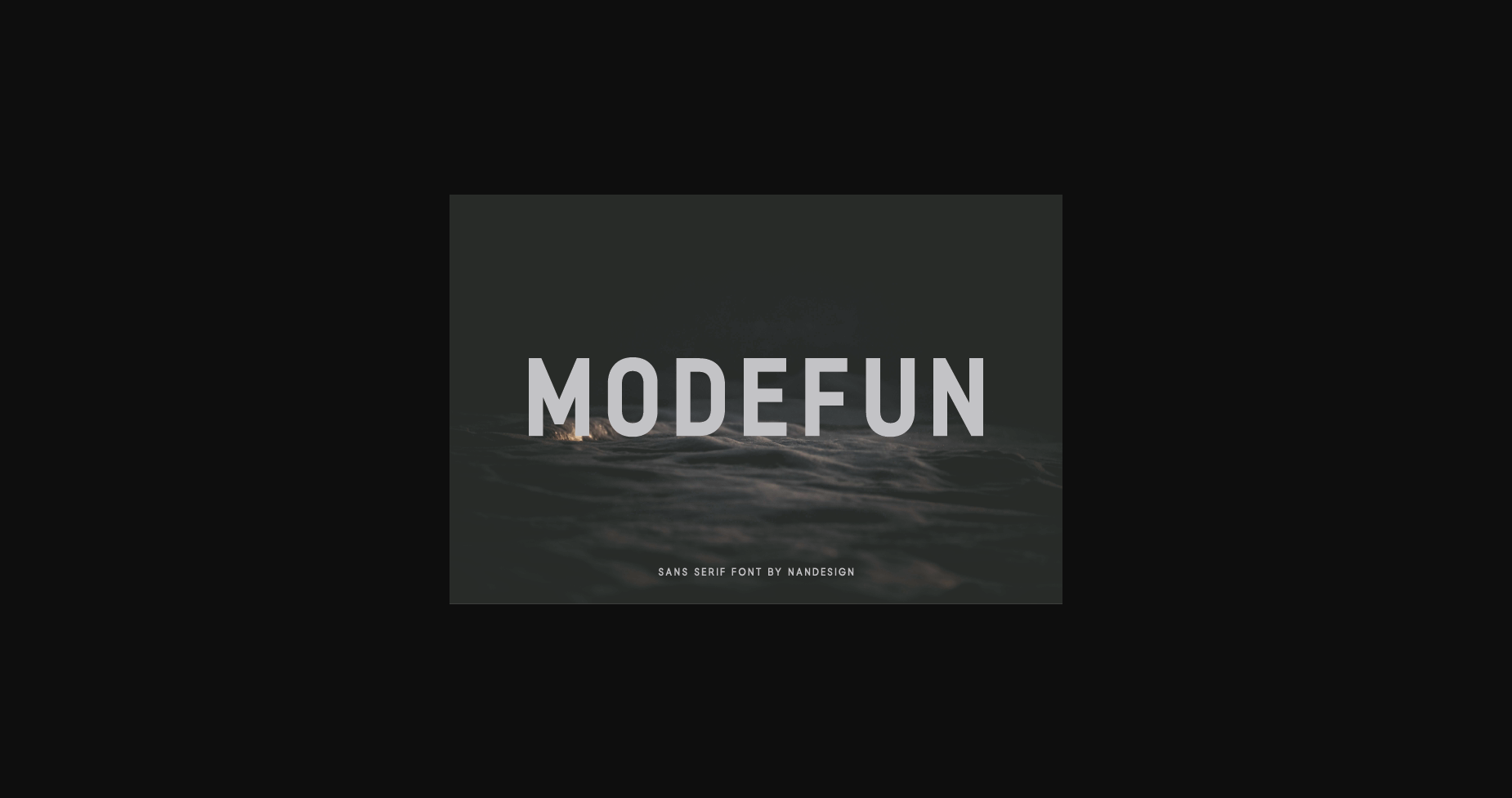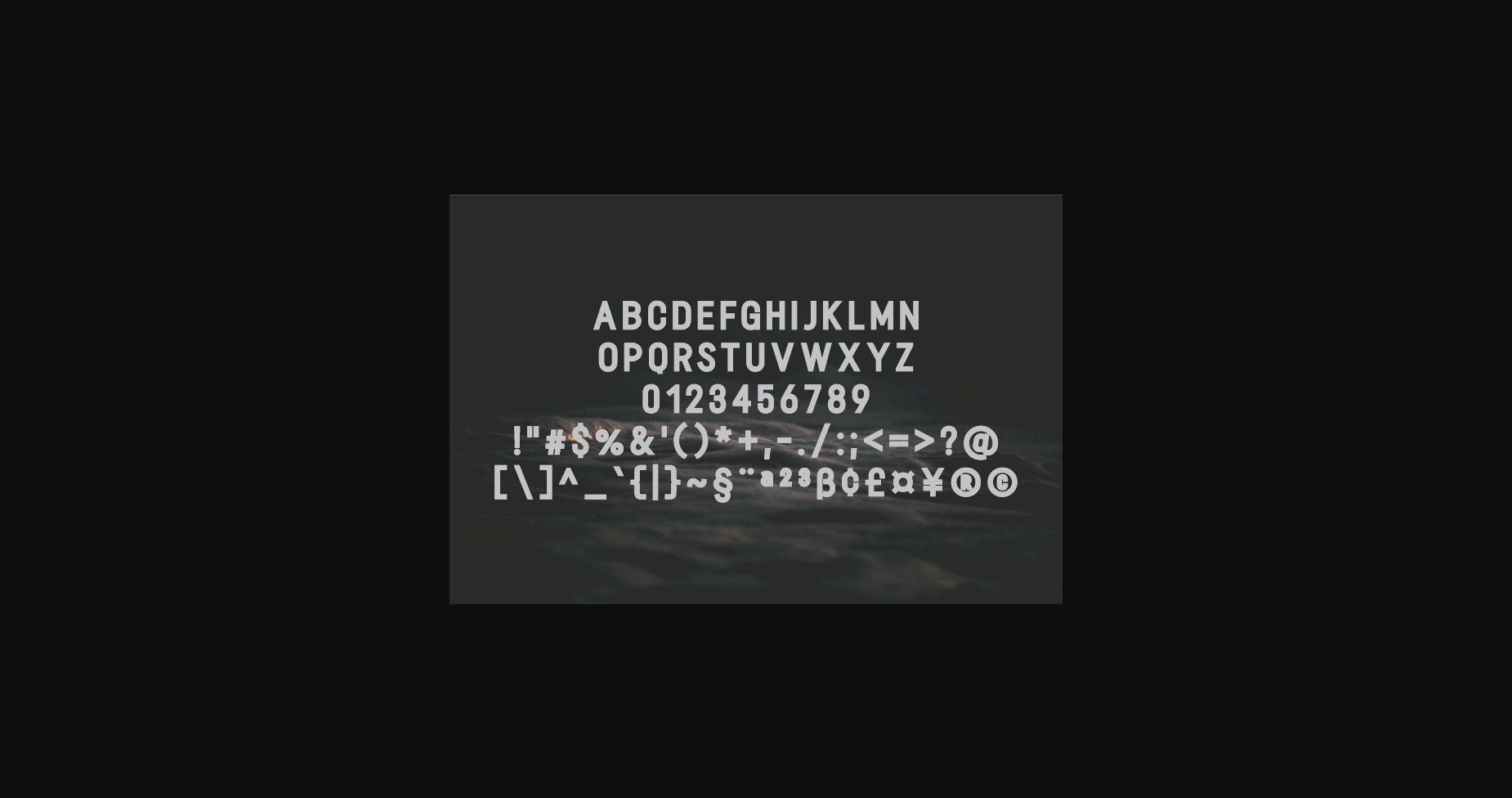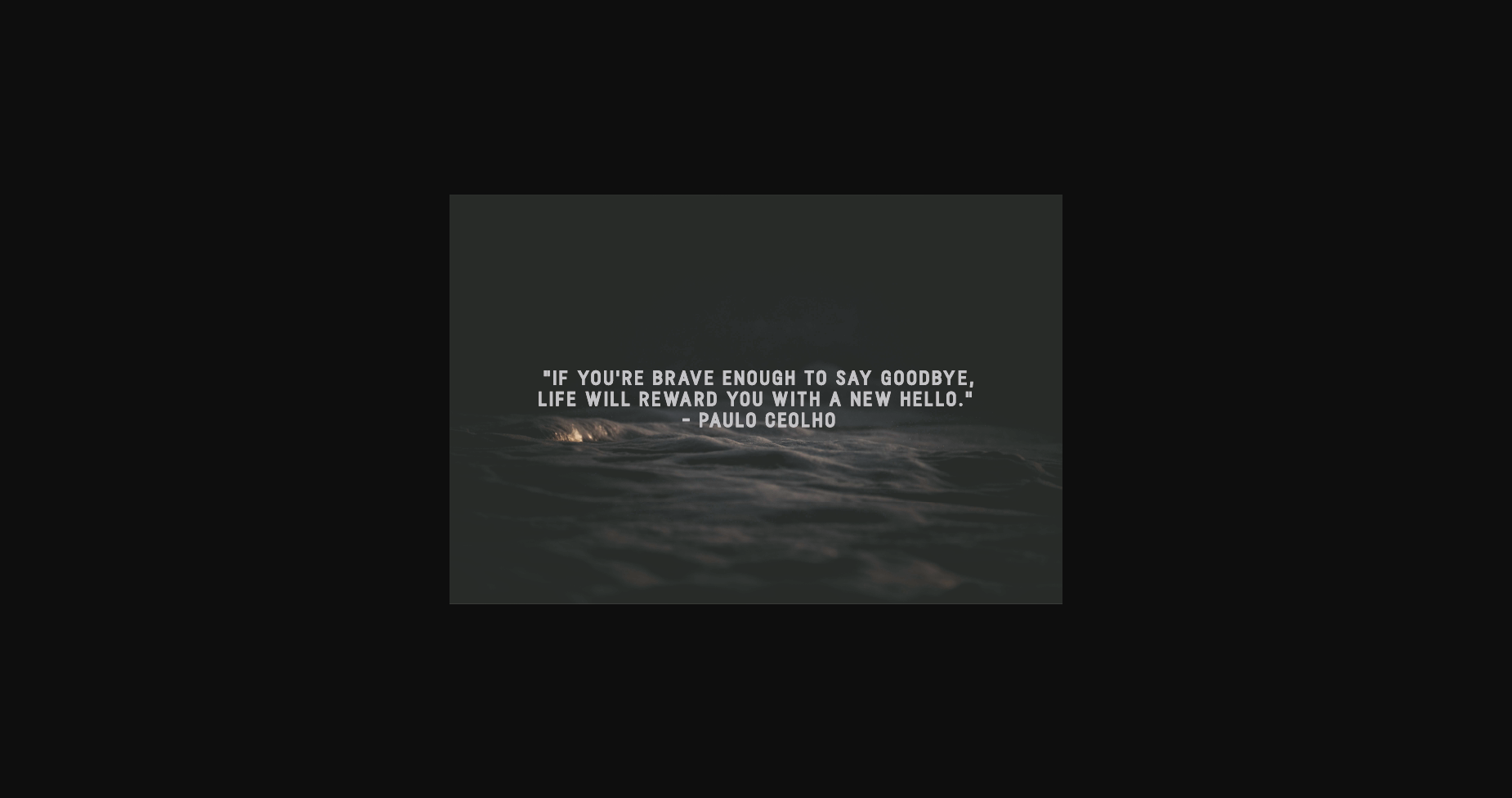
HomeSans Serif FontsModefun Font Sans Serif Fonts Modefun Font FacebookXPinterestWhatsApp 1 of 5 ... Modefun Font Poster 2... Modefun Font Poster 3... Modefun Font Poster 4... Modefun Font Poster 5... About Modefun Font Modefun is a minimal and neat sans serif font. It can easily be matched to an incredibly large set of projects, so add it to your creative ideas and notice how it makes them stand out! DOWNLOAD NOW People also explored Savattera Font Chocolate Font Bosmen Font Bowling Font Midnight Font Khingston Font Talld Font Shepherd Font Beehoney Font 469 0 TagsModefunModefun Font Previous articlePhoetien FontNext articleSweetland Font LEAVE A REPLY Cancel reply Comment: Please enter your comment! Name:* Please enter your name here Email:* You have entered an incorrect email address! Please enter your email address here Website: Save my name, email, and website in this browser for the next time I comment. Personal Use Free Angelitta Personal Use Free Read more about this font Ammanda Personal Use Free Read more about this font Spectrashell Personal Use Free Read more about this font Old Linoleum Personal Use Free Read more about this font BLOG 5 Fonts That Will Dominate Design Trends in 2026 5 Fonts for 2026 That Will Dominate Design Trends Typography plays a critical role in visual communication, and as we look ahead to 2026, it’s... Using Fonts in Digital Marketing: Tips to Strengthen Your Brand Identity The 10 Best Handwriting Fonts to Add Personality to Your Designs Best Fonts for T-Shirt Design – Top 2025 Picks